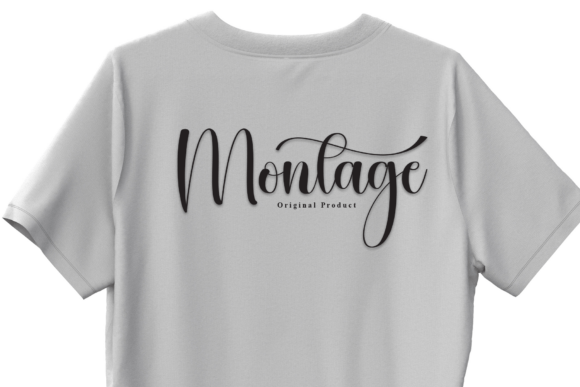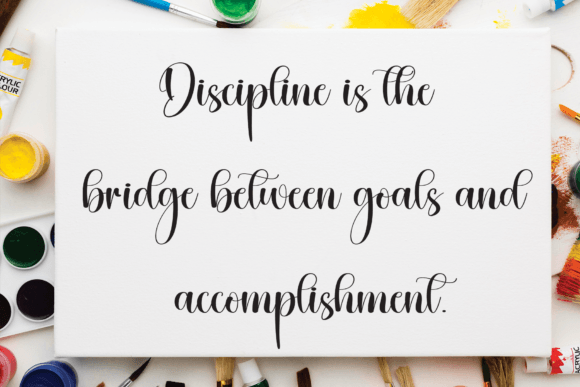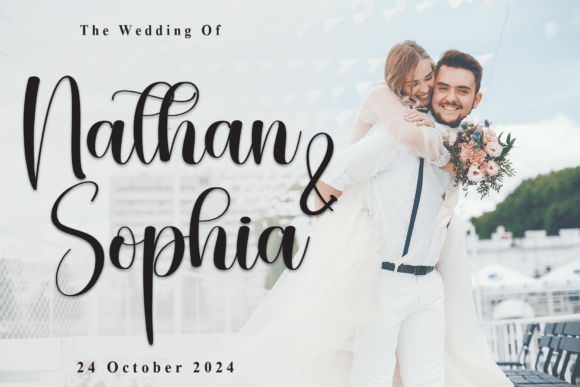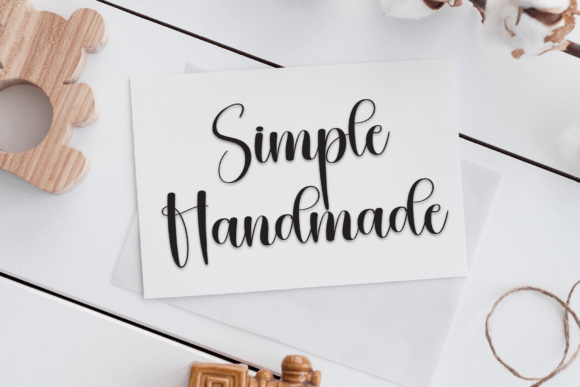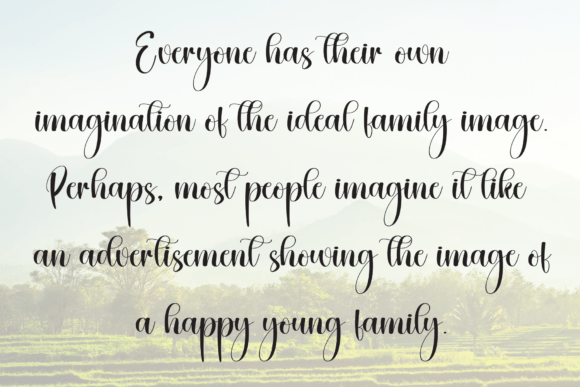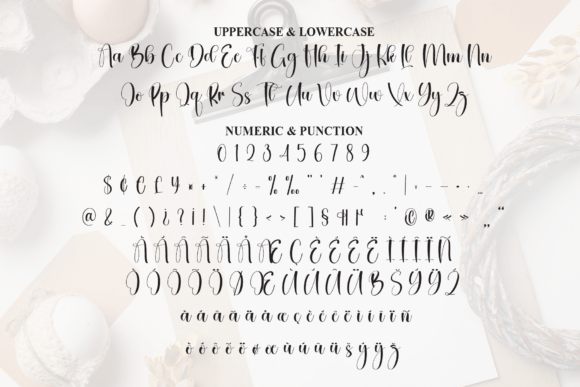
Introduction to Monthreal Font
Have you ever stared at a blank canvas, unsure of how to bring your creative vision to life? We’ve all been there. For designers, finding the right font can be the difference between a beautiful, high-quality design and one that falls flat. That’s why we’re excited to introduce you to the Monthreal Font, a stylish handwritten font that’s about to become your new best friend.
With its bold and thin lines, Monthreal Font gives your designs a unique and dynamic look that’s perfect for adding a personal touch. Whether you’re working on a free download or a paid project, this font is sure to elevate your creative project to the next level. And the best part? It’s free to download and features a transparent background, making it easy to integrate into any design.
As a valuable resource for designers, Monthreal Font offers a level of elegance and sophistication that’s hard to find in other fonts. Its versatility makes it perfect for a wide range of creative projects, from branding and advertising to editorial and more. So why wait? Discover the power of Monthreal Font for yourself and take your designs to new heights.
Key Features of Monthreal Font
- Includes a variety of unique characters with transparent backgrounds, ideal for use in graphic design and digital art.
- Features a clean and modern design, making it perfect for use in logos, branding, and other visual identity projects.
- Perfect for designers and artists looking for a high-quality, versatile font to enhance their creative projects.
- Comes in a single size, making it easy to use and customize in a variety of design contexts.
Honest Review: Monthreal Font
I recently stumbled upon the Monthreal Font, a free design resource that caught my attention. As a designer, I appreciate high quality fonts that can elevate my creative projects.
What works well: ✨ The Monthreal Font has a unique, modern design that can be used for a variety of creative projects. The font is available for free download, making it an excellent addition to any design resource library. The transparent background is a nice touch, allowing for easy customization and flexibility.
Some notable features of the Monthreal Font include:
- High quality design suitable for creative projects
- Modern design aesthetic
Limitations: ⚠️ The Monthreal Font is limited in its font styles, with only a few options available. This may not be ideal for designers who require a wide range of font styles for their projects.
Overall, I’m impressed with the Monthreal Font’s modern design and high quality. While it may have some limitations, it’s a valuable addition to any design resource library. I’d definitely consider using it for future creative projects.
Tips for Getting the Most Out of Monthreal Font
Use Monthreal Font in combination with other design elements to create a visually appealing design. Experiment with different font sizes, colors, and styles to add depth and interest to your design project. Use Monthreal Font in headings and subheadings to create a clear hierarchy of information.
Common Use Cases for Monthreal Font
Monthreal Font is commonly used in creative projects such as graphic design, digital art, and typography. It is also used in business and marketing materials such as brochures, flyers, and posters. With its high quality and transparent background, Monthreal Font is a versatile design resource that can be used in a variety of applications.